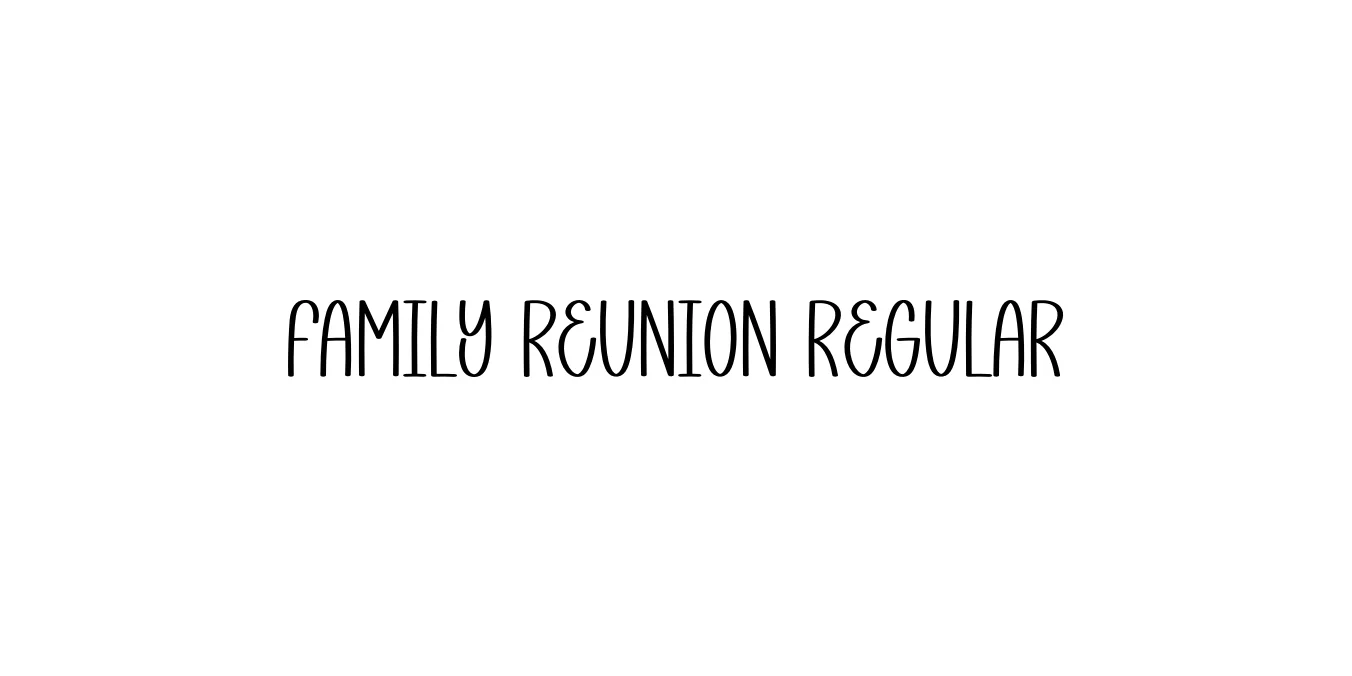
Family Reunion Regular
Family Reunion Regular is a charming and whimsical handwritten script font created by the renowned designer Rob Leuschke of TypeSETit. This font captures the essence of casual, heartfelt communication, making it an excellent choice for projects that require a touch of personality and warmth. Its bouncy baseline and fluid strokes simulate the look of genuine handwriting, providing an organic feel that stands out in digital and print media alike.
The versatility of Family Reunion lies in its ability to remain legible while maintaining its decorative flair. It is frequently used for sentimental occasions, such as family gatherings, greeting cards, and scrapbooking. Whether used for a catchy headline or a short passage of text, this font adds a nostalgic and welcoming atmosphere to any creative work, bridging the gap between professional design and a personal touch.
Family Reunion Regular Best Uses
Ideally suited for family reunion announcements and informal party invites.
Adds a personal, handwritten feel to holiday or birthday cards.
Excellent for overlaying text on images for a friendly, approachable brand voice.
Perfect for digital or physical memories and journaling.